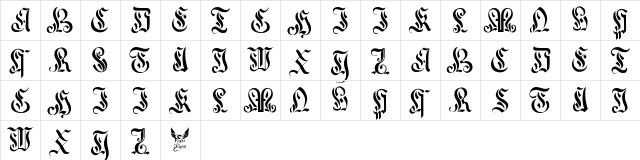
Curved Manuscript, 17th c. Regular
Design Context for Curved Manuscript, 17th c. Typeface
Curved Manuscript, 17th c. flows with the natural rhythm of handwritten lettering, making it ideal for designs that call for warmth and personal expression.
Font Pairing: Combine Curved Manuscript, 17th c. with a simple geometric sans for maximum contrast — the tension between flowing curves and clean structure is a classic typographic pairing.
Pro Tip: Pair Curved Manuscript, 17th c. with a clean sans-serif for supporting text. The contrast between fluid script and geometric structure creates an elegant typographic hierarchy.